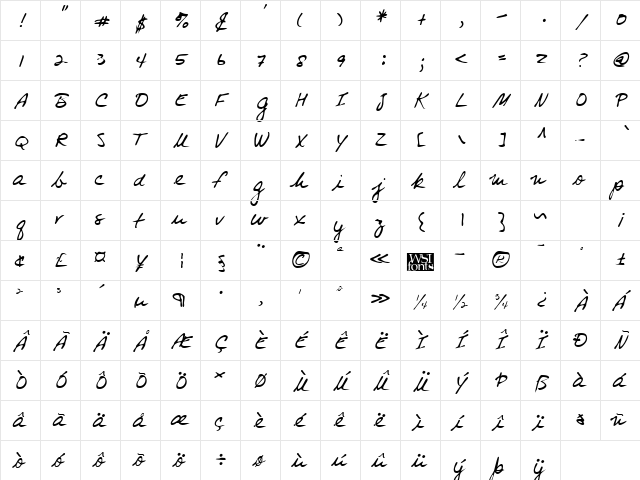
ElliesHand Regular
Design Context for ElliesHand Typeface
ElliesHand brings a calligraphic fluidity to the page — its connecting strokes and expressive curves give it an unmistakably human quality.
Font Pairing: Combine ElliesHand with a simple geometric sans for maximum contrast — the tension between flowing curves and clean structure is a classic typographic pairing.
Pro Tip: Use ElliesHand for short runs of text — names, titles, or taglines. Extended body copy in script faces tires the eye quickly.